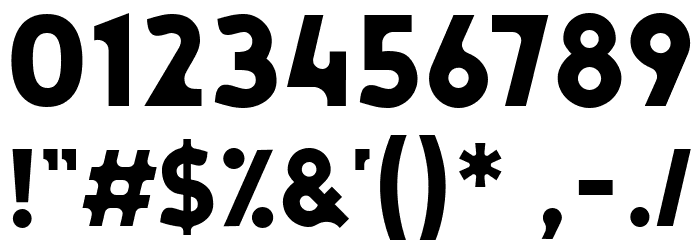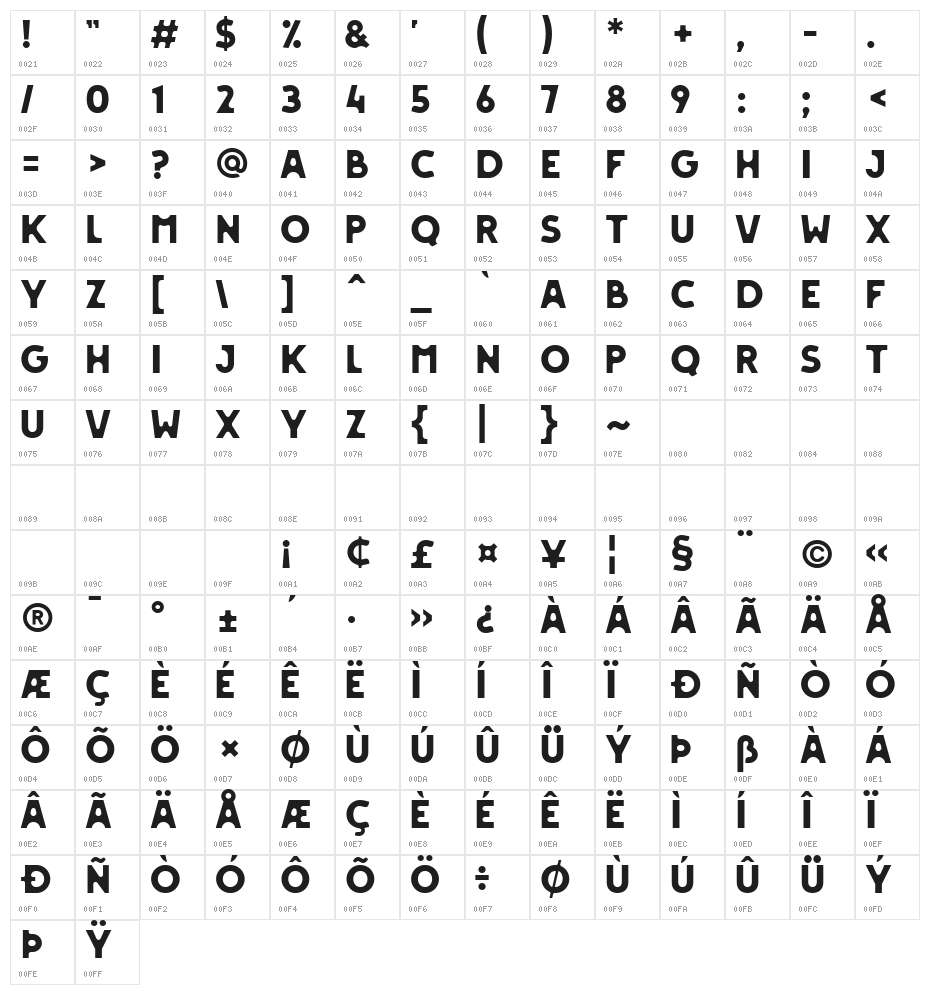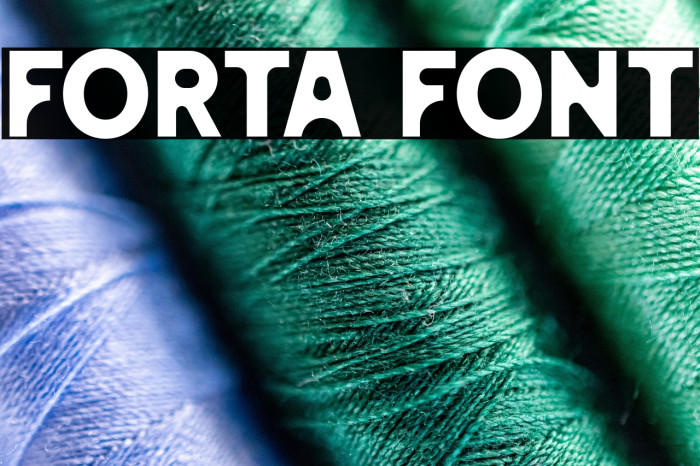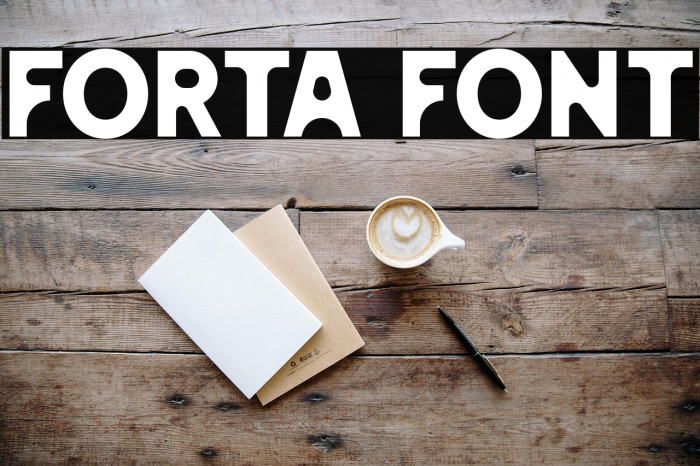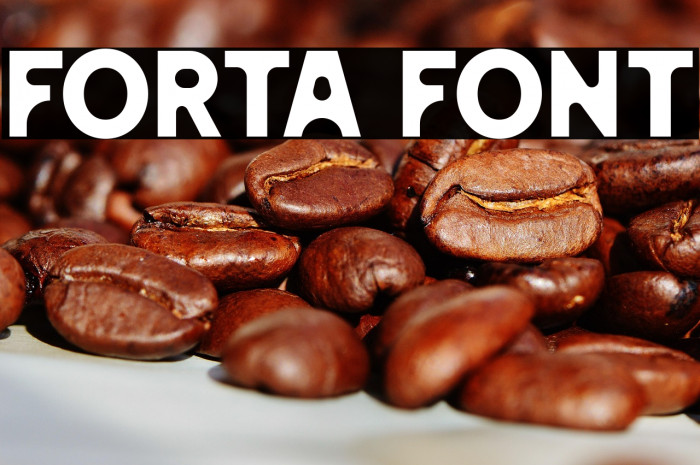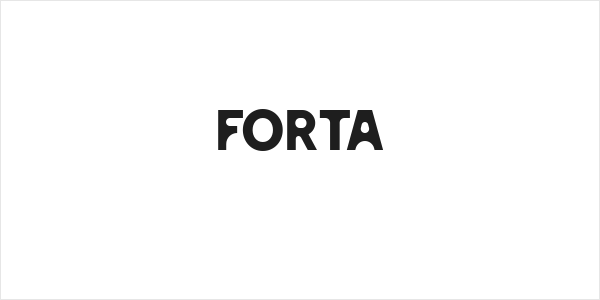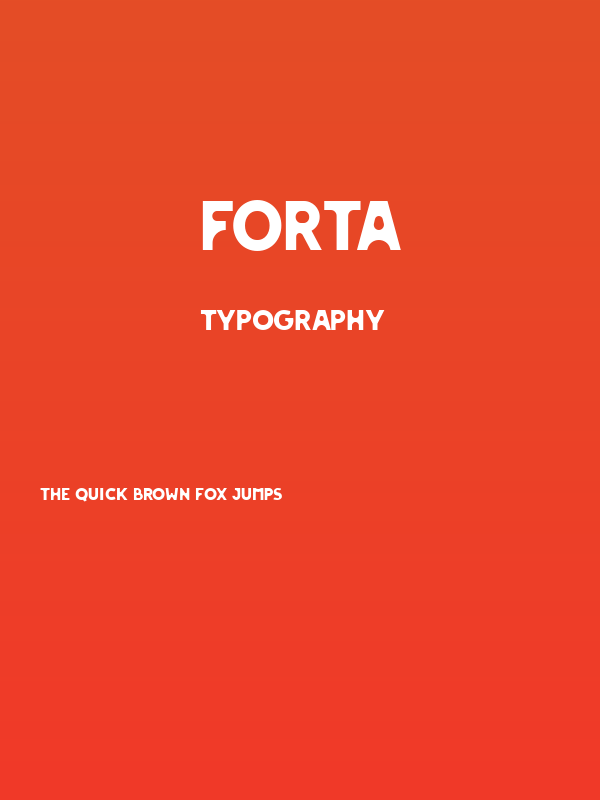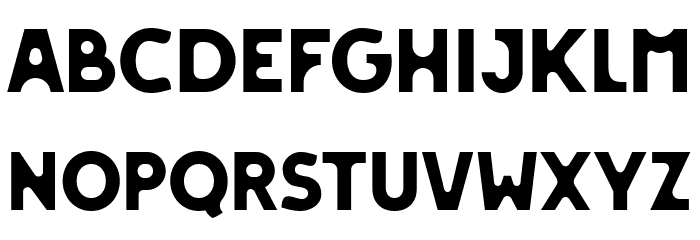
FORTA Font
FORTA Description
This font features bold, geometric letterforms with a strong presence. The characters are crafted with a uniform stroke width, giving them a robust and modern appearance. The uppercase letters are particularly striking, with a slightly condensed form that enhances readability while maintaining a distinctive style. The numerals are equally bold and consistent, matching the overall aesthetic of the alphabet. Special characters are included, maintaining the same bold and geometric design. This font is versatile, suitable for a variety of design projects that require a strong and impactful typeface.